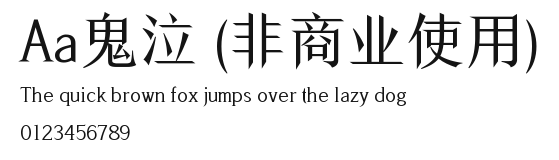
• Designer: Aa
• Manufacturer: 北京奇思众和科技有限公司
• Description: AaGuiqi (Non-Commercial Use) is a fantastic font with excellent features designed for user interfaces and electronic communications.
About Aa鬼泣 (非商业使用).ttf
Aa鬼泣 (非商业使用).ttf is a modern, elegant sans-serif font designed for ultimate readability and visual harmony. Perfect for branding, headlines, web design, and print materials.